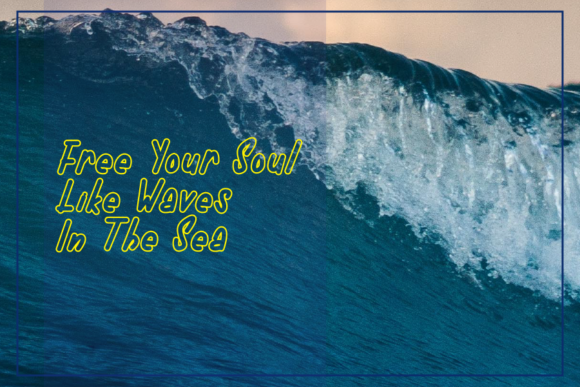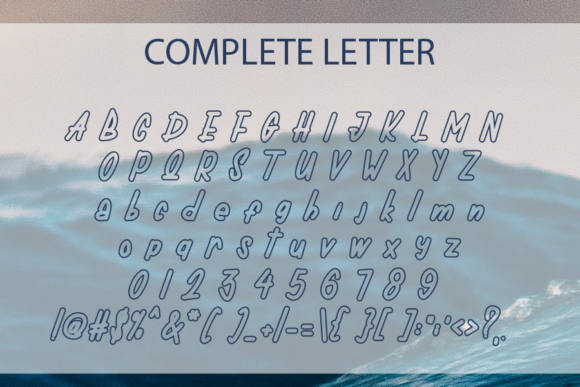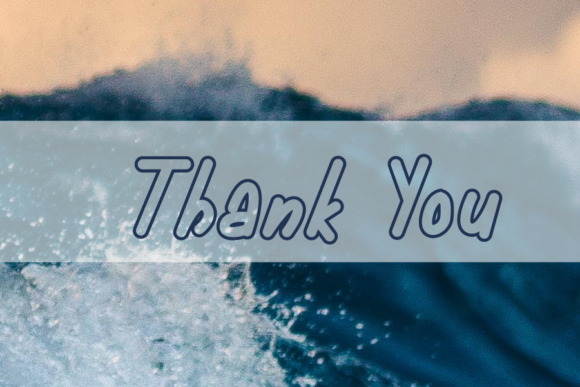
Introduction to Free Will Font
Free Will is a handwritten font with a modern style.
Clean and a little bit quirky, this font is the perfect fit for all of your logos, branding, social media, and crafty DIY projects .